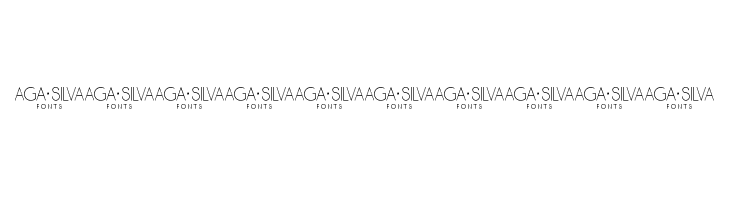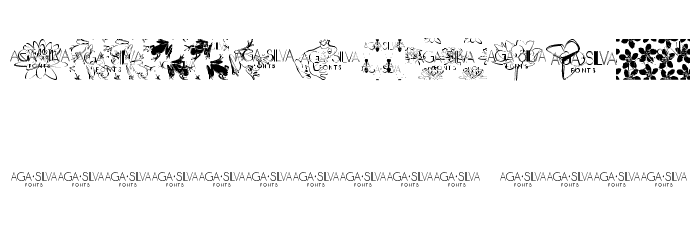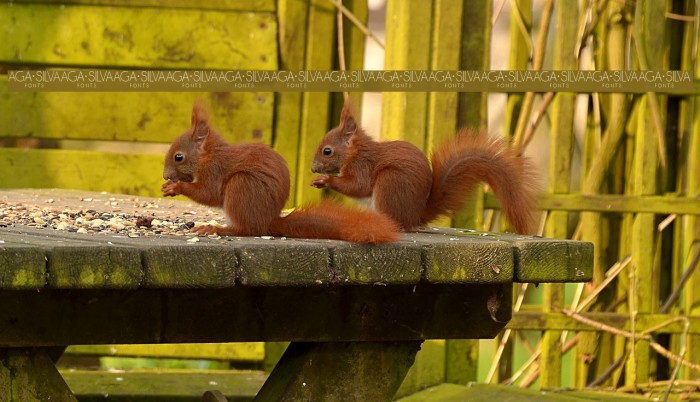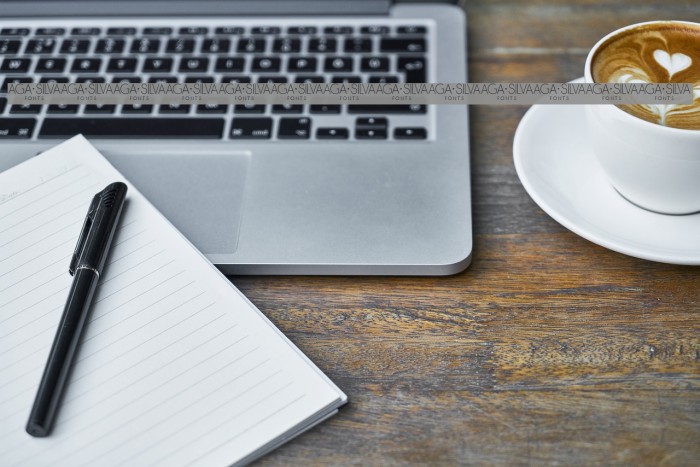
LiliusDEMO Font
LiliusDEMO Description
This font is a decorative and artistic typeface that incorporates intricate floral and abstract patterns within each character. The design is highly detailed, with each letter featuring unique embellishments that create a visually striking appearance. The font is primarily uppercase, with a whimsical and creative style that makes it stand out. It is not suitable for body text due to its complexity but excels in creating eye-catching headlines or artistic designs. The characters are closely spaced, enhancing the dense and ornate look of the font.
A decorative font with intricate floral patterns and abstract designs from Uncategorized fonts.
- Proposed Projects: Ideal for artistic posters, unique branding, creative invitations, and decorative headlines.
- Character Spacing: Tight